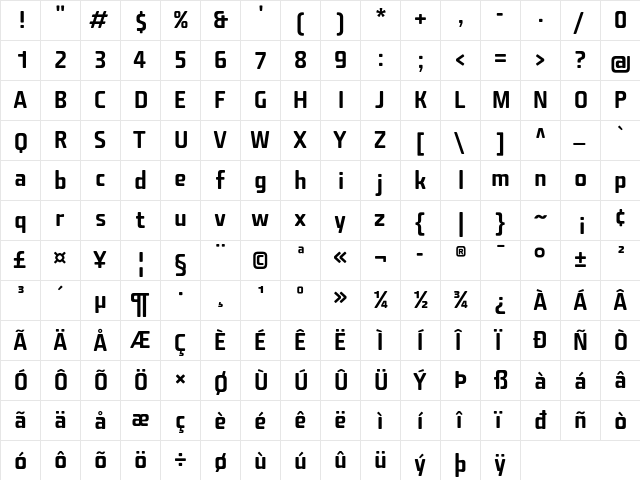
Fishmonger MS Plain
Design Context for Fishmonger MS Typeface
Fishmonger MS offers clean, dependable letterforms without strong stylistic allegiance, making it a practical choice for designers who need flexibility.
Pro Tip: Use Fishmonger MS in both headline and body roles to test its range before committing to a single application.